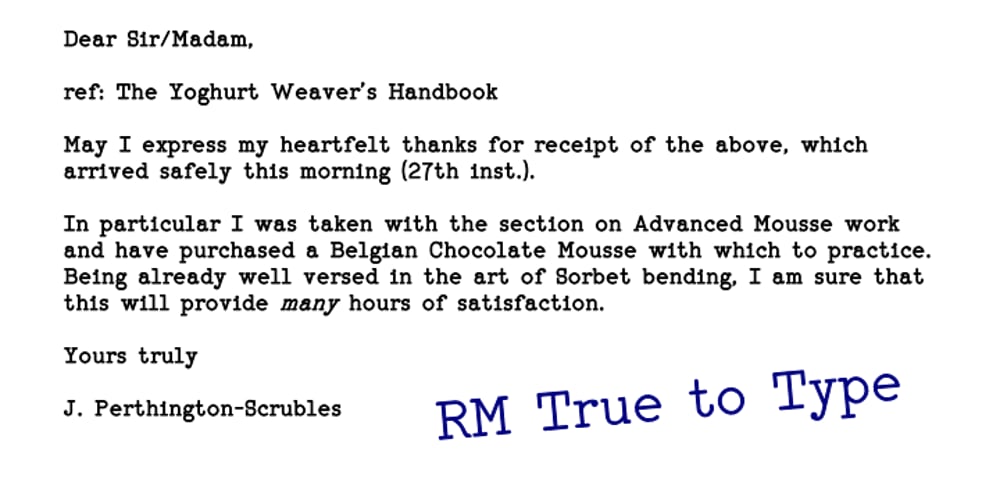
RM True To Type Font Family was designed by Ray Meadows and published by Ray Meadows. RM True To Type contains 4 styles and family package options. Throw away the carbon paper, ribbons and Tippex … now you can get that typewritten look with RM True to Type. Legible at all sizes, it is available in regular and bold. That faithful old typewriter has given many years of valiant service, but now the keys are worn and blocked with ink. The Old styles replicate the wear and tear of years of use. Includes: Western European, Central European, Baltic & Turkish sets Due to the modular nature of this design there may be a slight lack of smoothness to the curves at very large point sizes (around 100 pt and above).